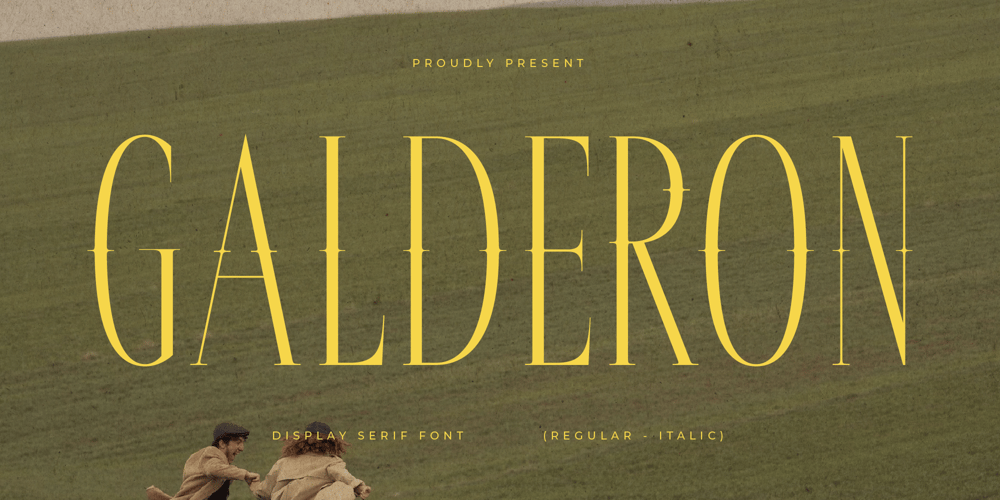
Galderon Font Family was designed by Heru Utama Putra and published by Letterena Studios. Galderon contains 2 styles and family package options. Proudly present Galderon Typeface.A serif modern and classic typeface that has its own unique style & modern look.This typeface is perfect for an elegant & luxury logo, book or movie title design, fashion brand, magazine, clothes, lettering, quotes, and so much more.